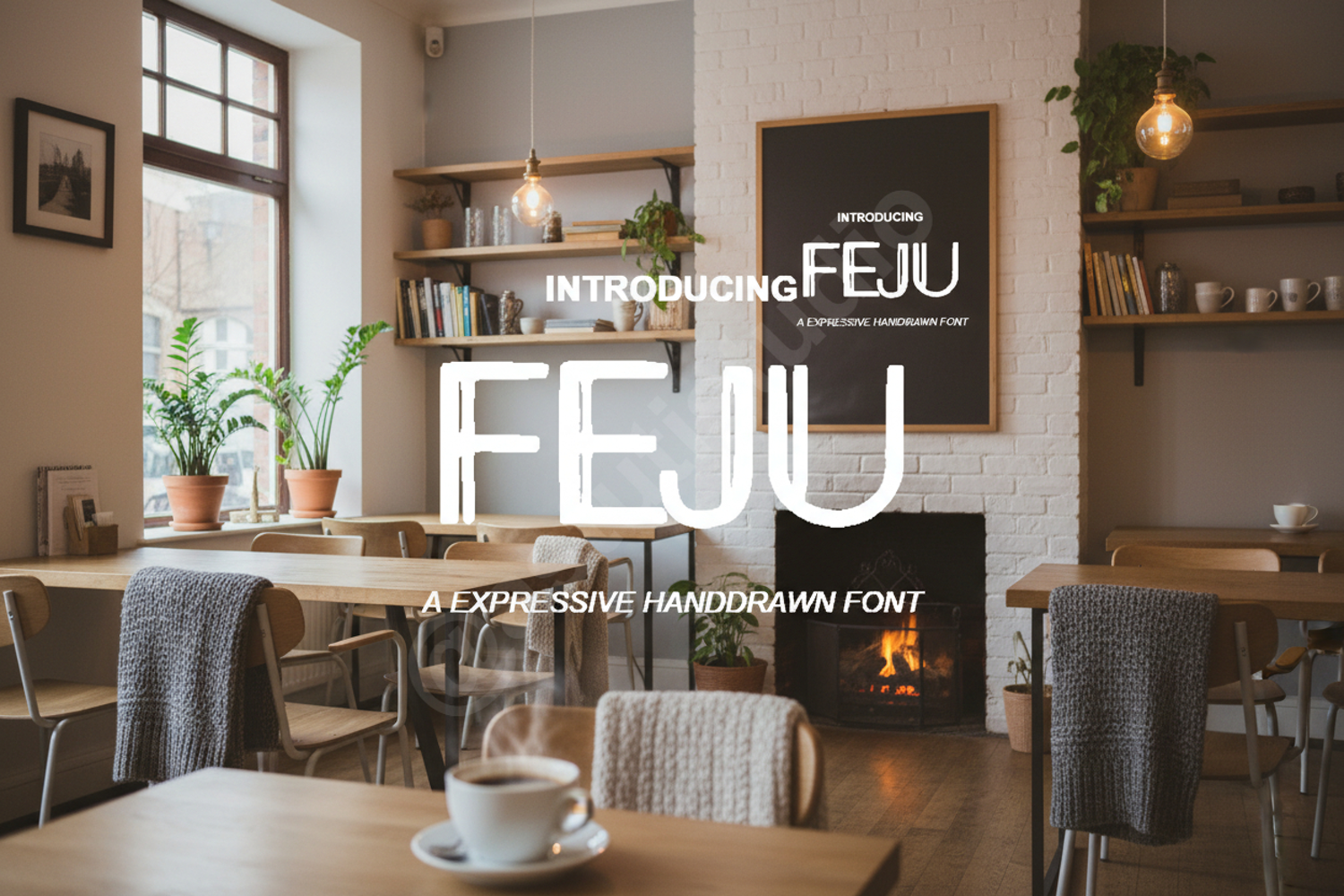
Feju - Modern Minimalist Sans Serif Font
Feju
Feju is a premium typeface meticulously crafted to embody modern minimalism and sophisticated design. With its clean lines and balanced proportions, Feju offers a professional look that remains versatile across various creative projects. Whether you are building a brand identity or designing high-end editorial content, this font provides the clarity and elegance your work deserves.
- Branding and Corporate Identity: Perfect for logos, business cards, and brand guidelines.
- Wedding and Event Stationery: Adds a touch of modern elegance to invitations and menus.
- Digital Marketing: Ideal for social media graphics, web headers, and advertising banners.
- Editorial Design: Excellent for magazine layouts, book covers, and clean typography blocks.
- UI/UX Design: Highly readable for mobile applications and website interfaces.